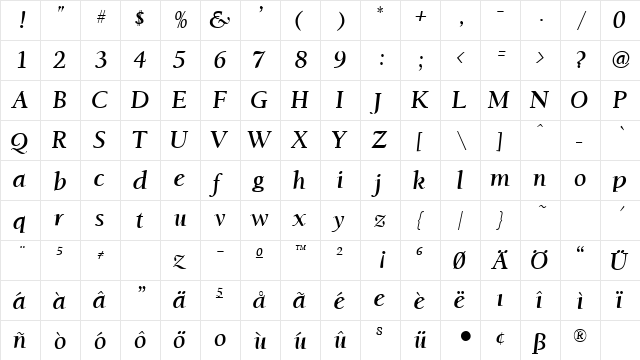
JacksonvilleOldStyle.fog brings classic typographic sensibility to the table — its serifs and measured letterforms reflect centuries of print heritage.
Pro Tip: Use JacksonvilleOldStyle.fog for editorial body copy and considered headline work. Pair with a neutral sans for UI elements or captions to create a classic hierarchy.